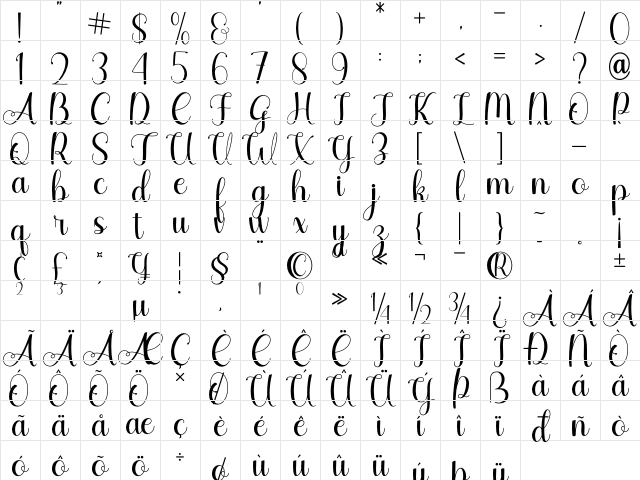
Agilia Regular
Foundry: Heru Utama Putra
Designer: Heru Utama Putra
Design Context for Agilia
Agilia is a composed and adaptable typeface that performs quietly and consistently across a wide range of design contexts.